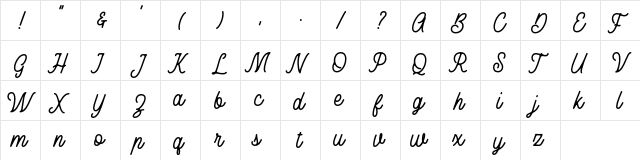
Rusted Orlando Demo Regular
| Foundry | Runsell Studio |
| Designer | Satia Hayu Prabowo |
Design Context for Rusted Orlando Demo Typeface
Rusted Orlando Demo is a composed and adaptable typeface that performs quietly and consistently across a wide range of design contexts.